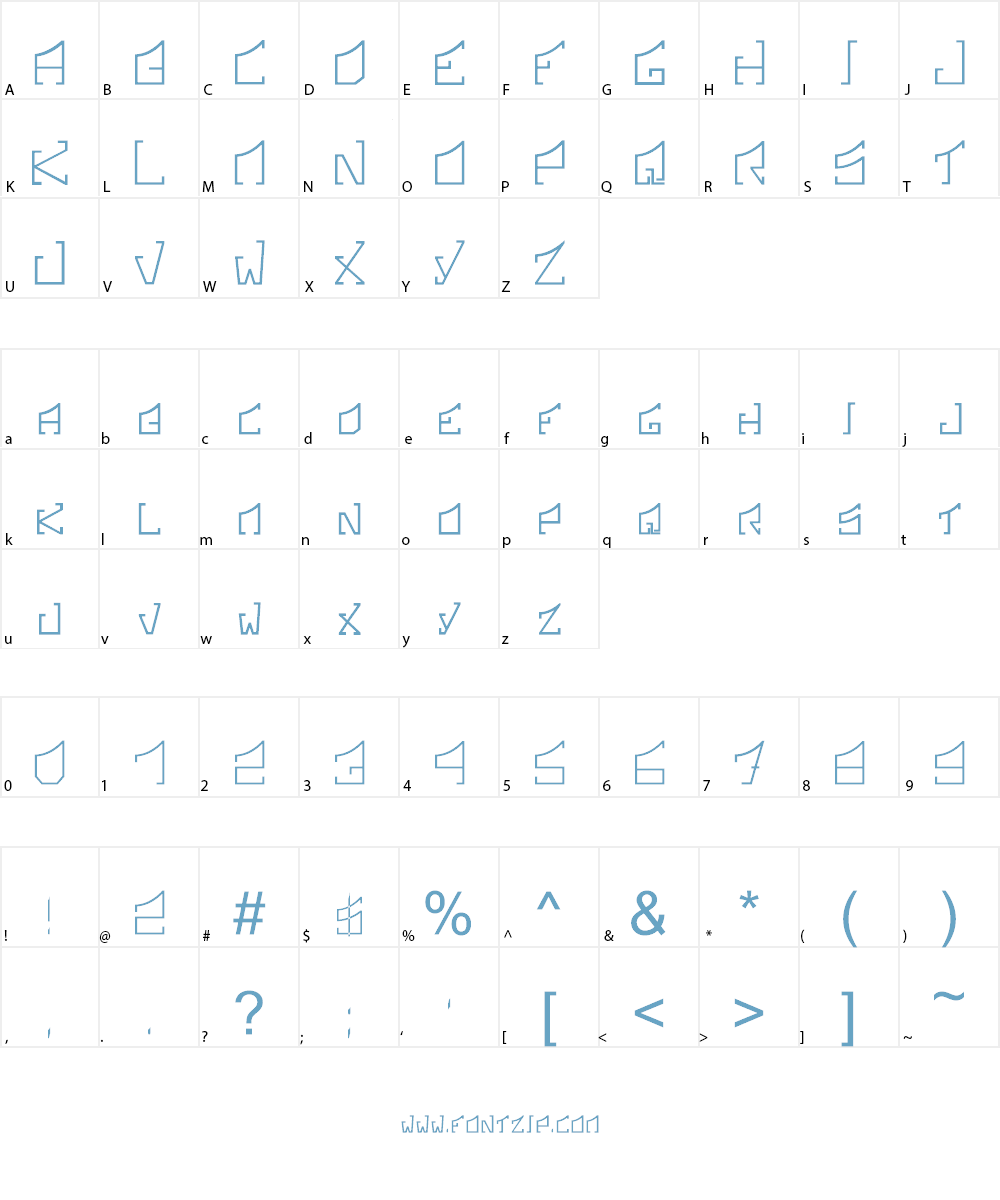
This font is the result of two months of work , carefully created for logos , flyers , posters , business cards and any type of product where you need a strong image.
This is the first release but later i will complete the alphabet and i will release other versions.